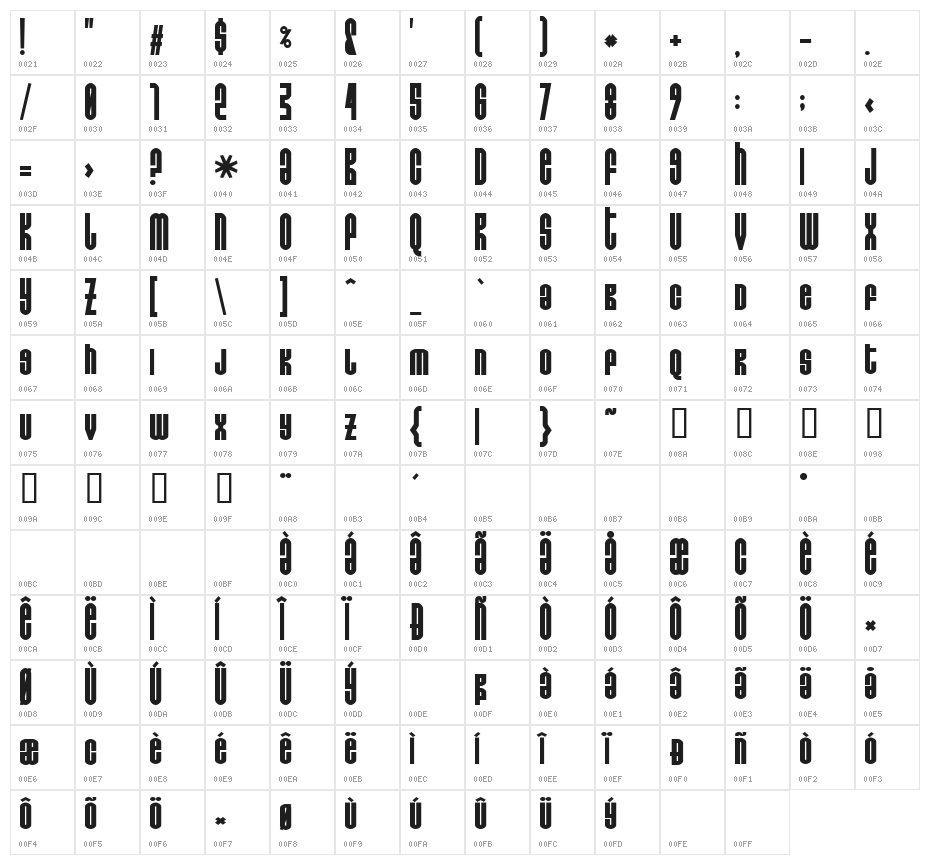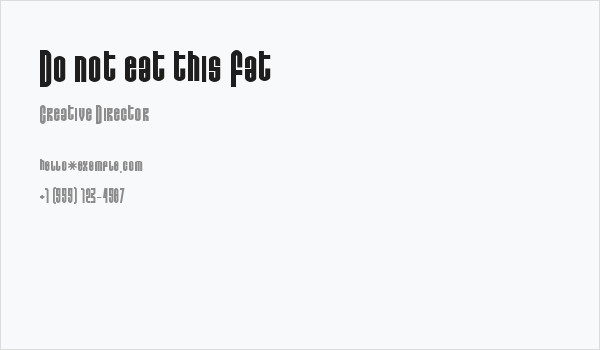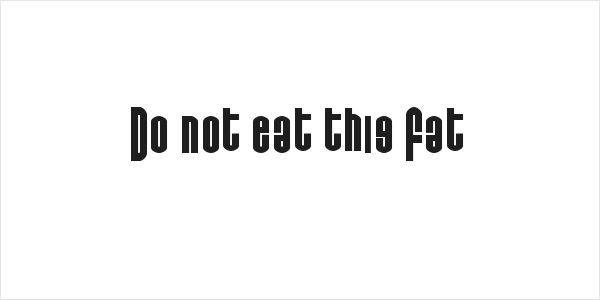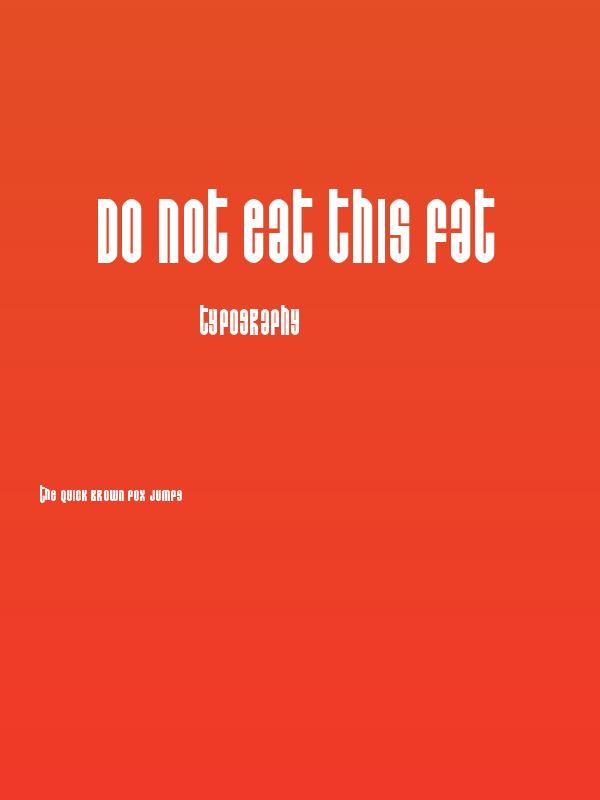
Do not eat this Fat Font
Do not eat this Fat Description
This font features a bold and striking design with thick, blocky characters that convey a strong visual impact. The uppercase and lowercase letters maintain a consistent height, creating a uniform appearance. The numbers and special characters are equally bold, ensuring they stand out prominently. The overall style is modern and geometric, with a slight retro influence. The characters are tightly spaced, enhancing the compact and powerful look. This font is ideal for making a statement in headlines or logos, where attention-grabbing text is essential.
| Proposed Projects | Ideal for branding, poster design, and any project requiring a bold, impactful typeface. |